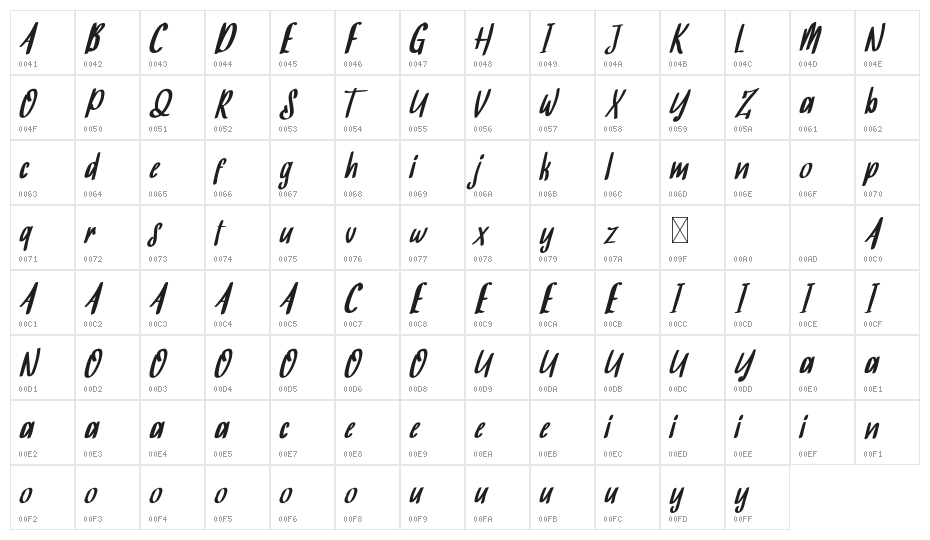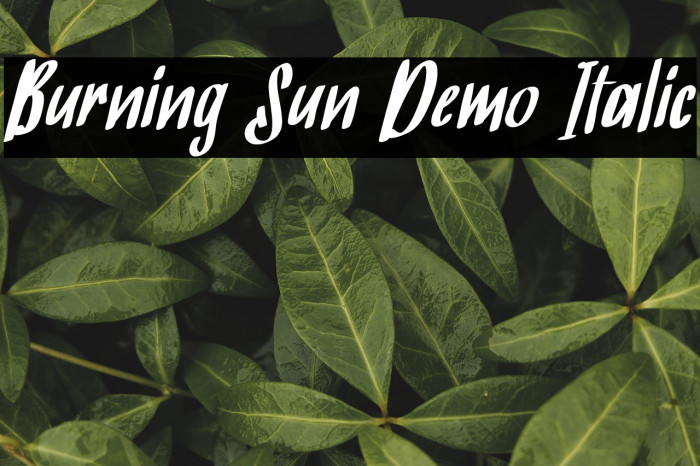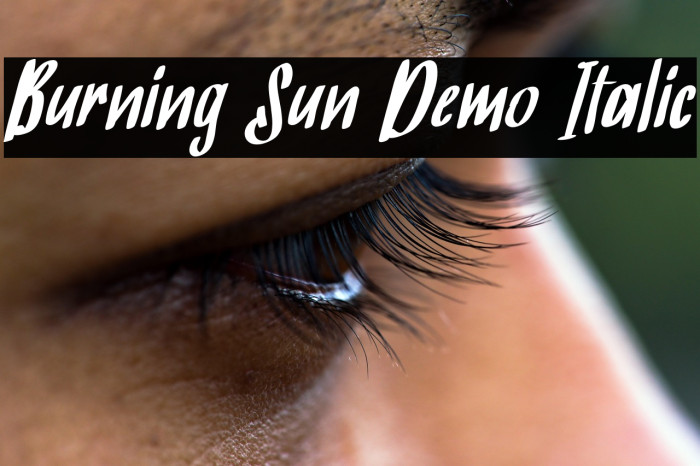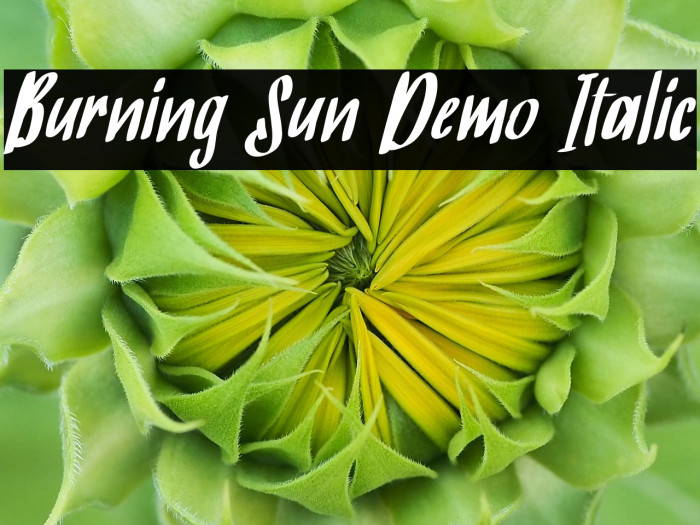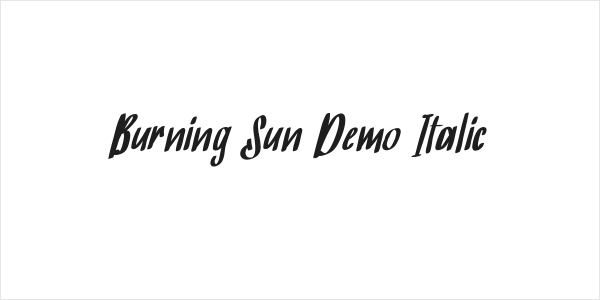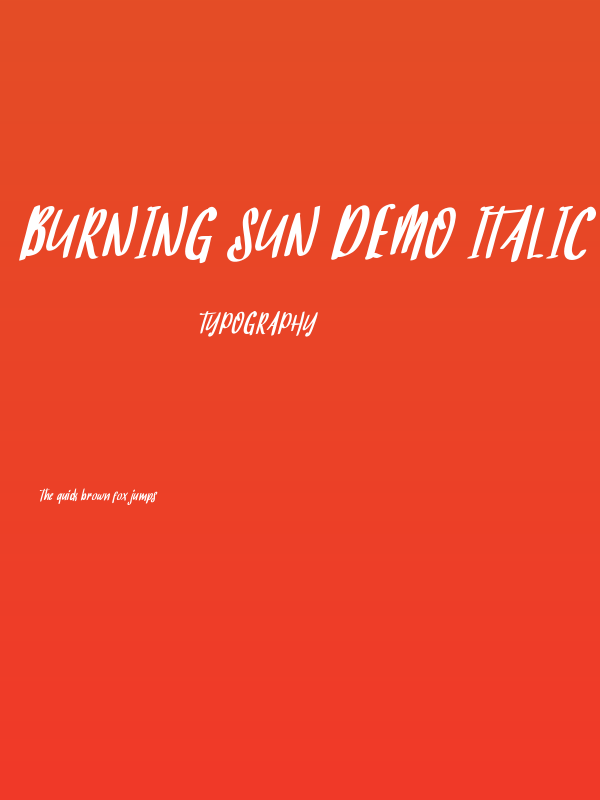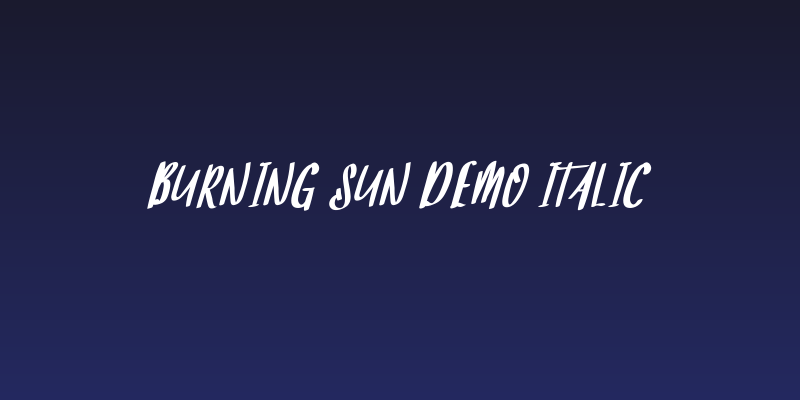
Burning Sun Demo Italic Font
Burning Sun Demo Italic Description
This font features a dynamic and energetic style with a handwritten appearance. The letters are slanted, giving it an italicized look, and the strokes are bold and expressive. The uppercase and lowercase letters maintain a consistent flow, with some characters having unique flourishes that add to its lively character. The numbers and special characters are designed to match the overall aesthetic, making it suitable for creative and artistic projects.
| Proposed Projects | Ideal for posters, branding, social media graphics, and any project requiring a bold, artistic touch. |